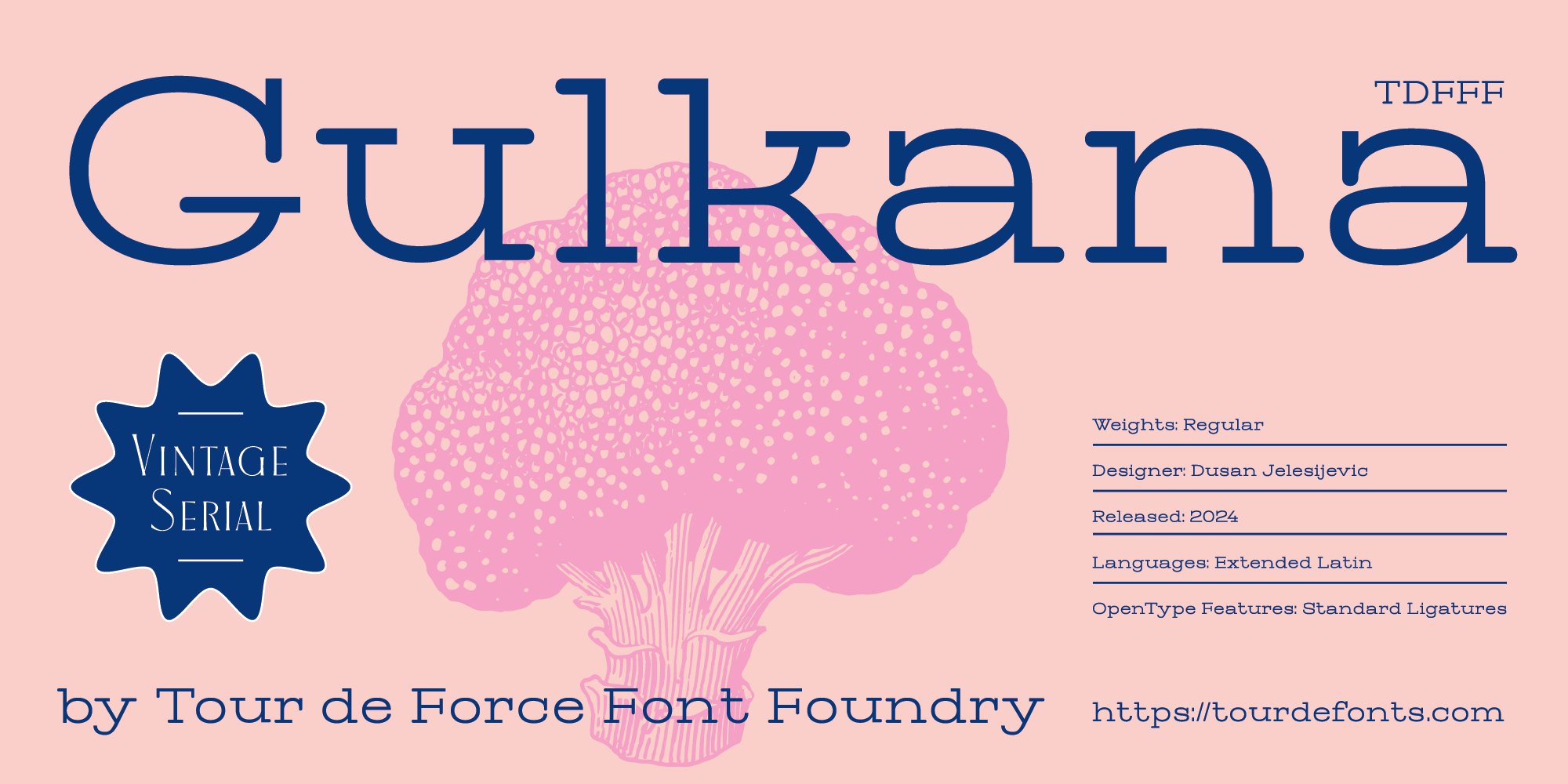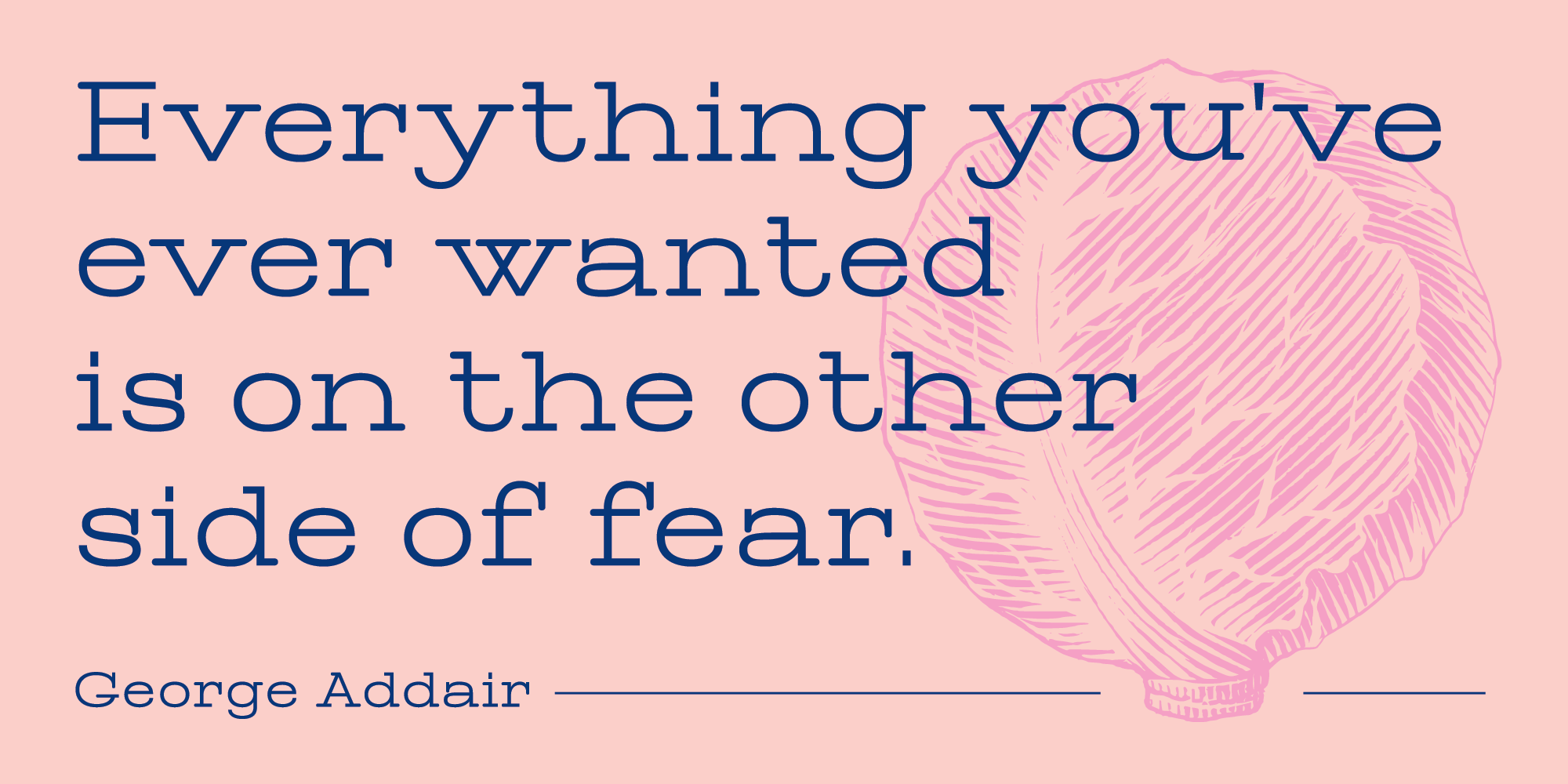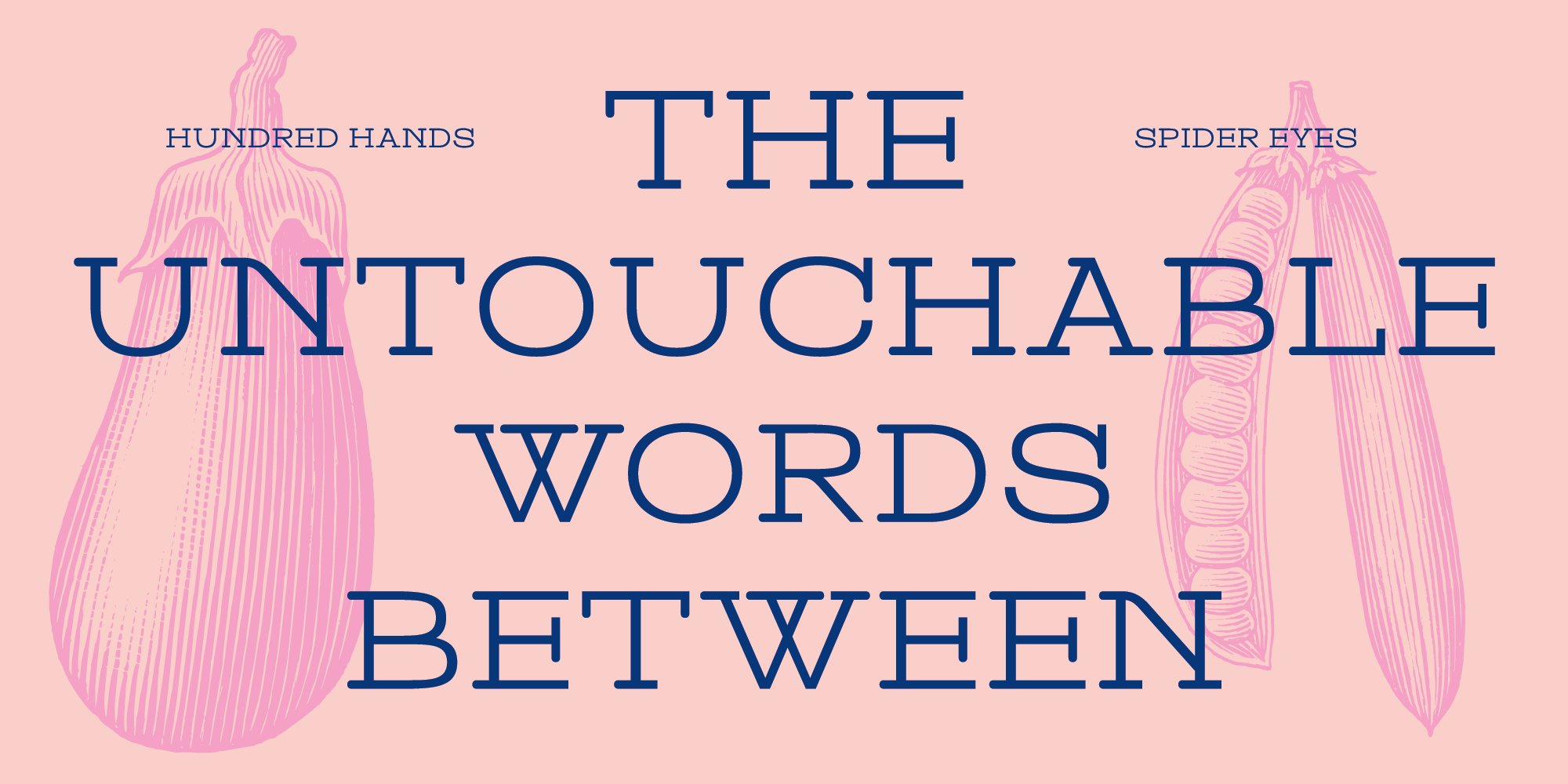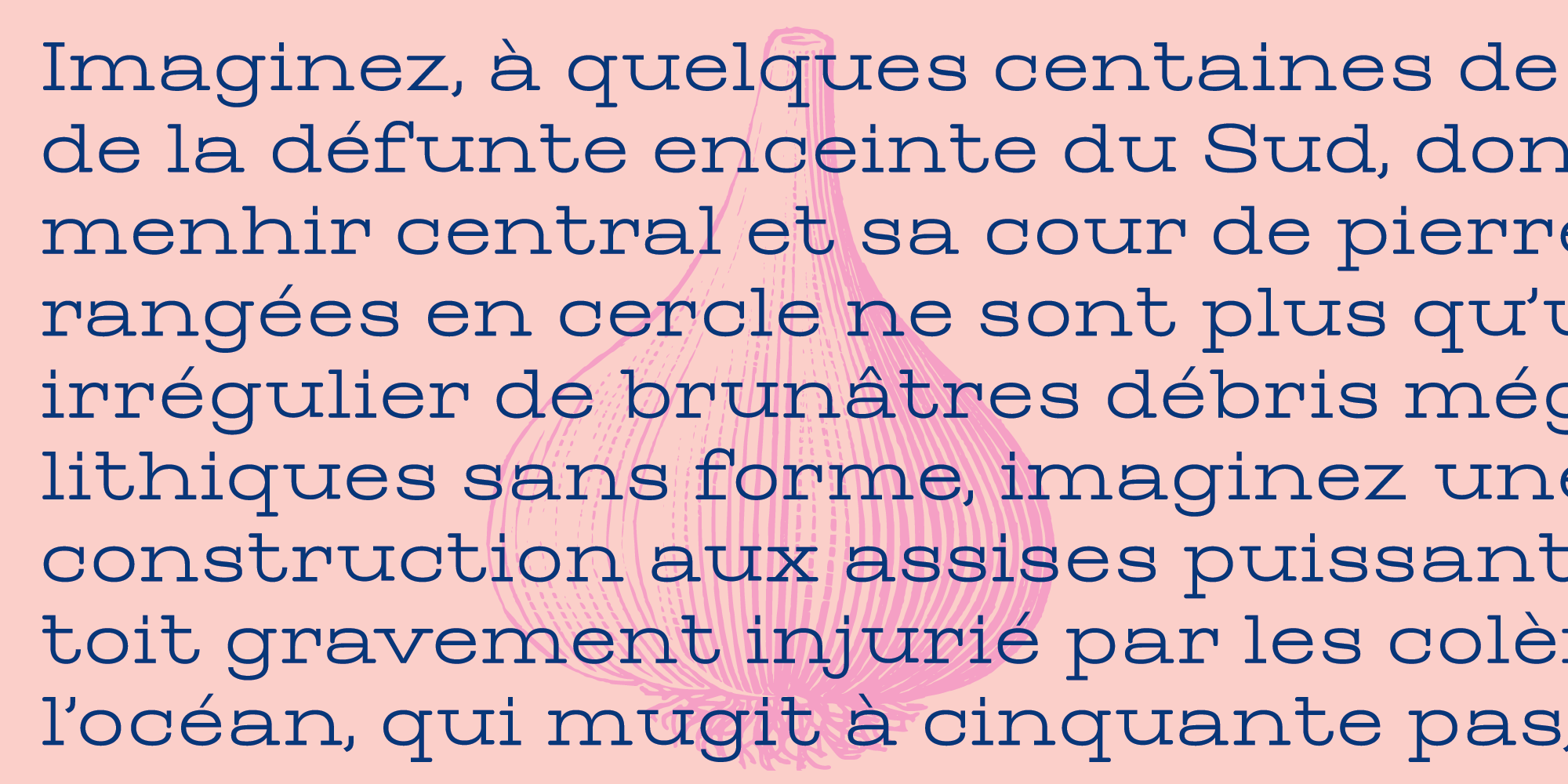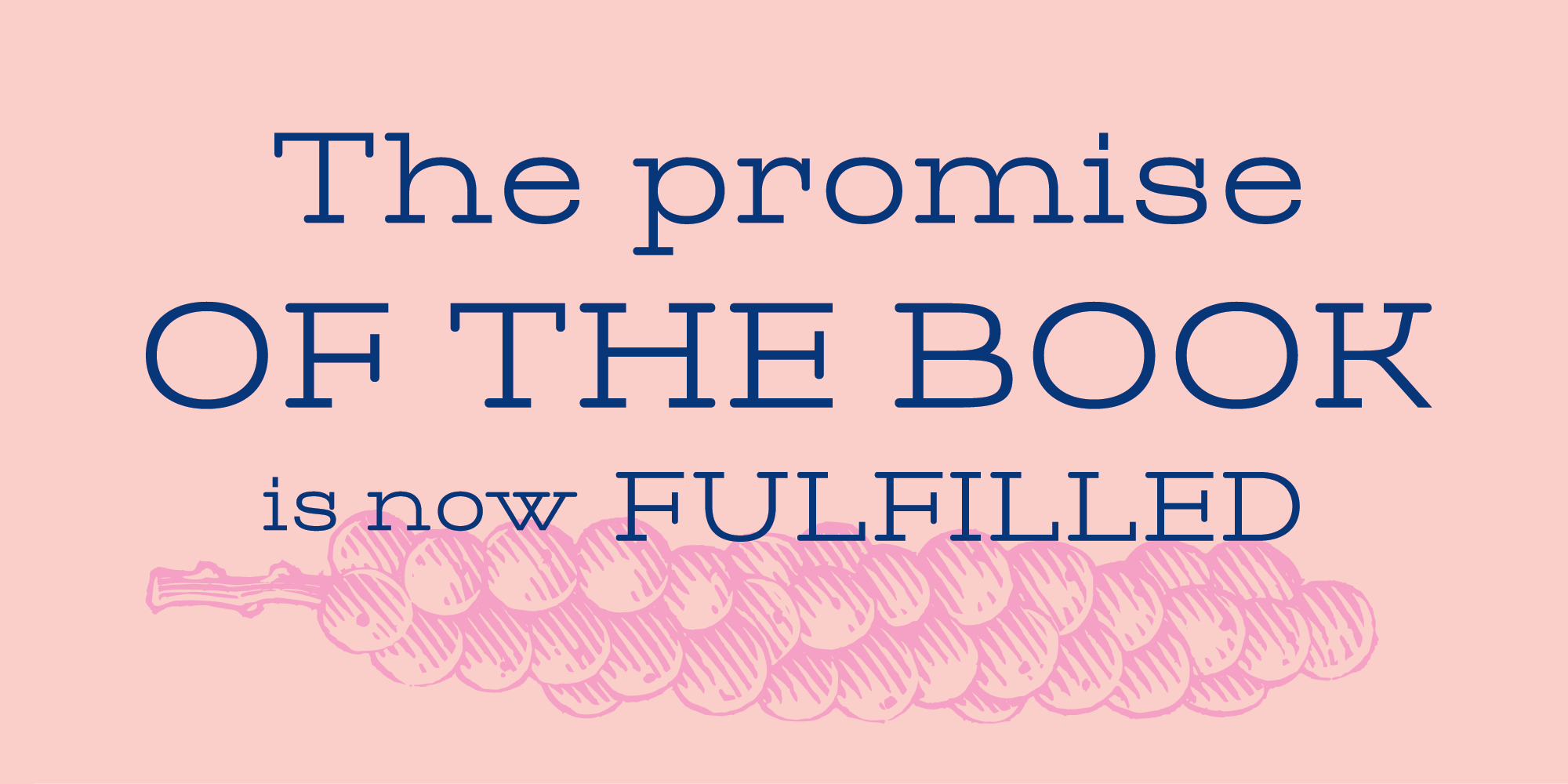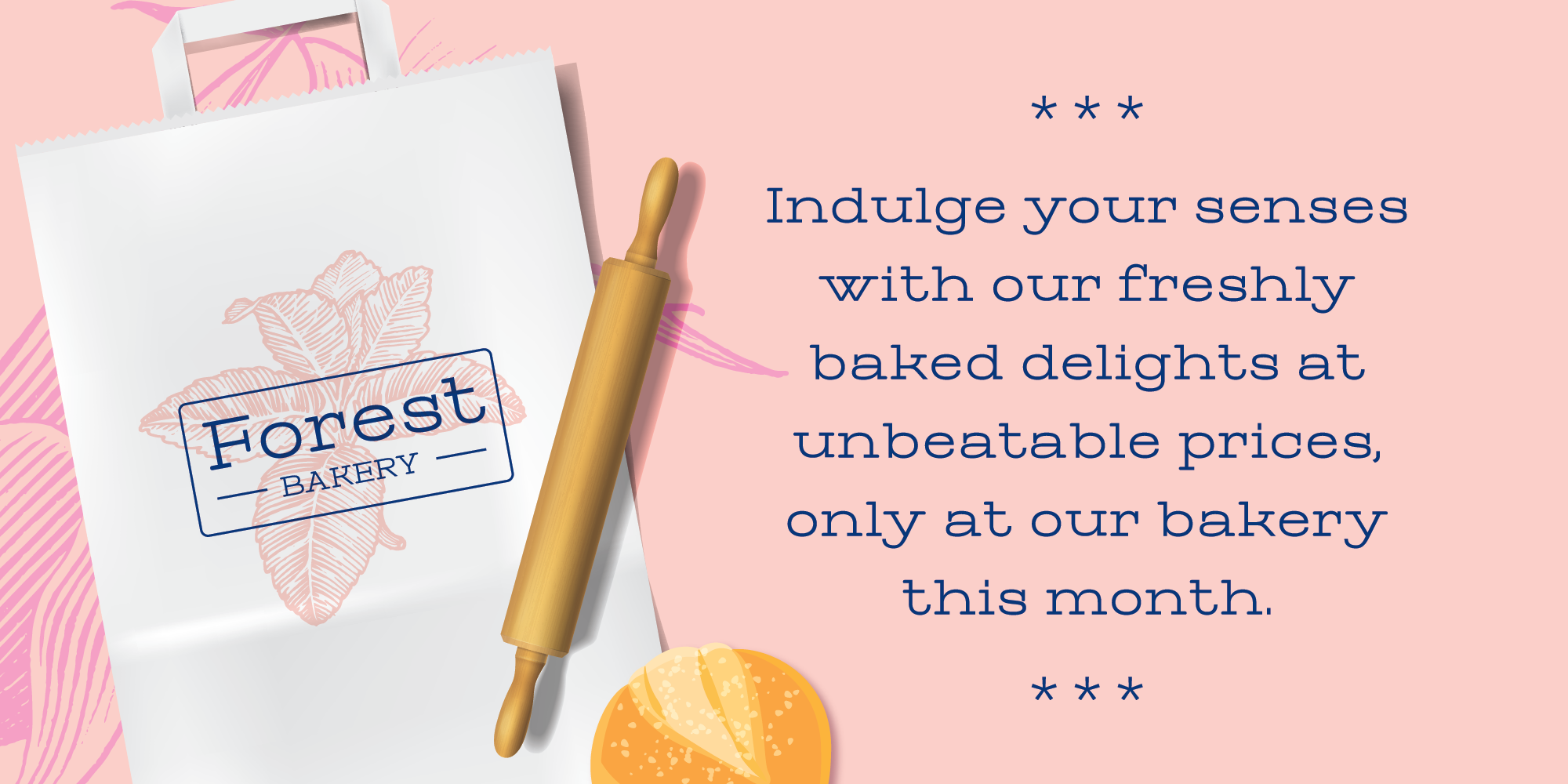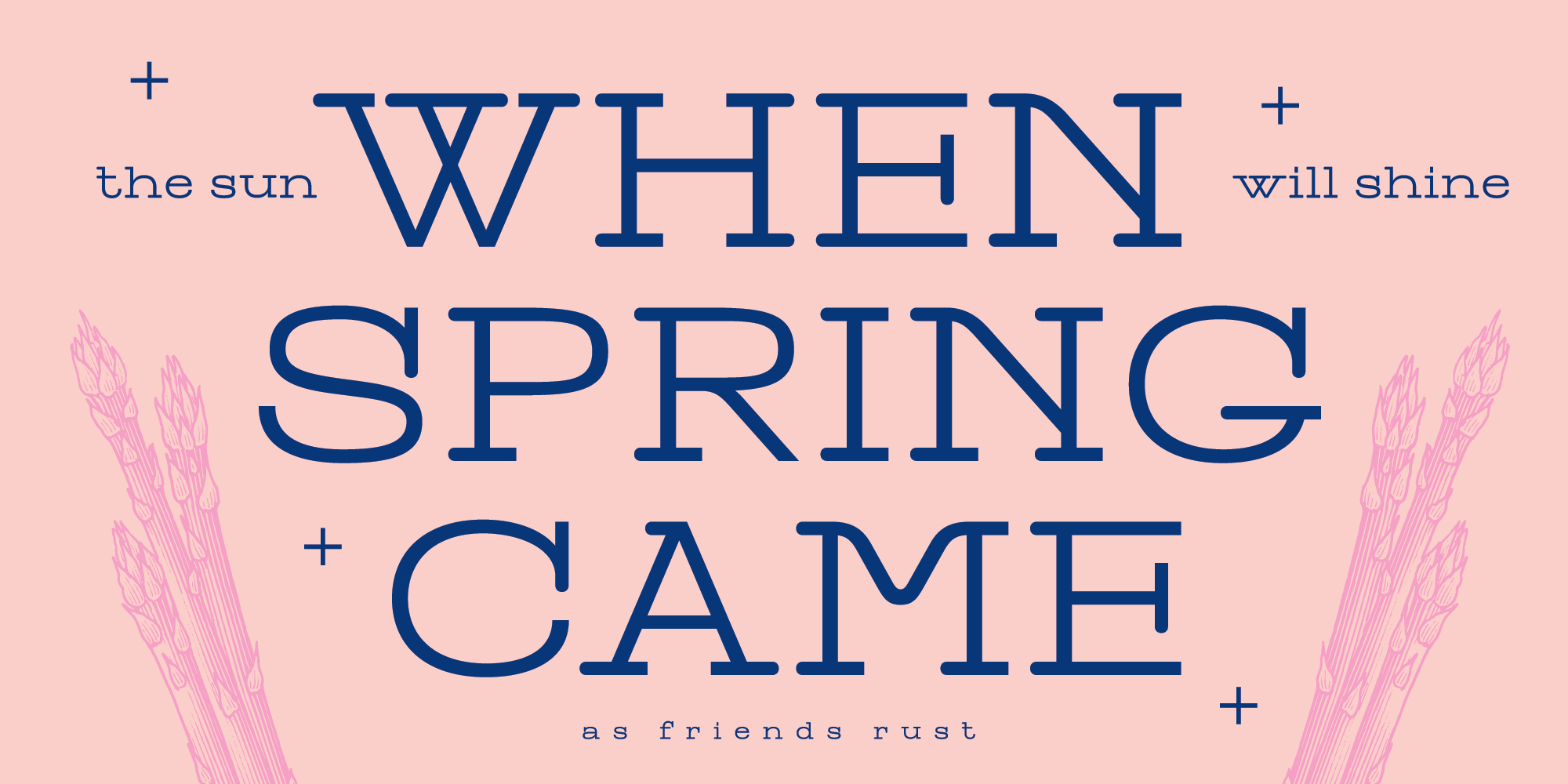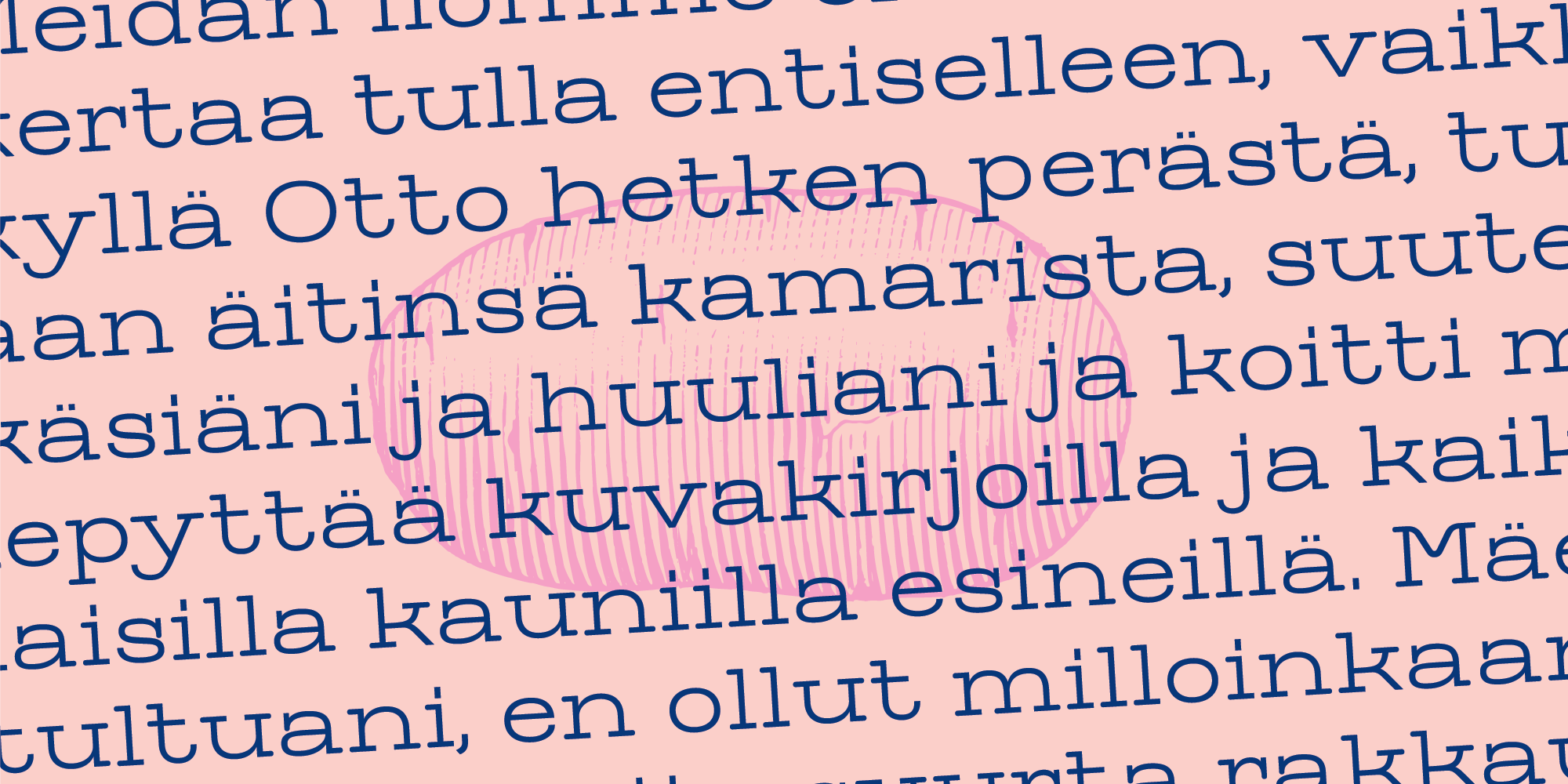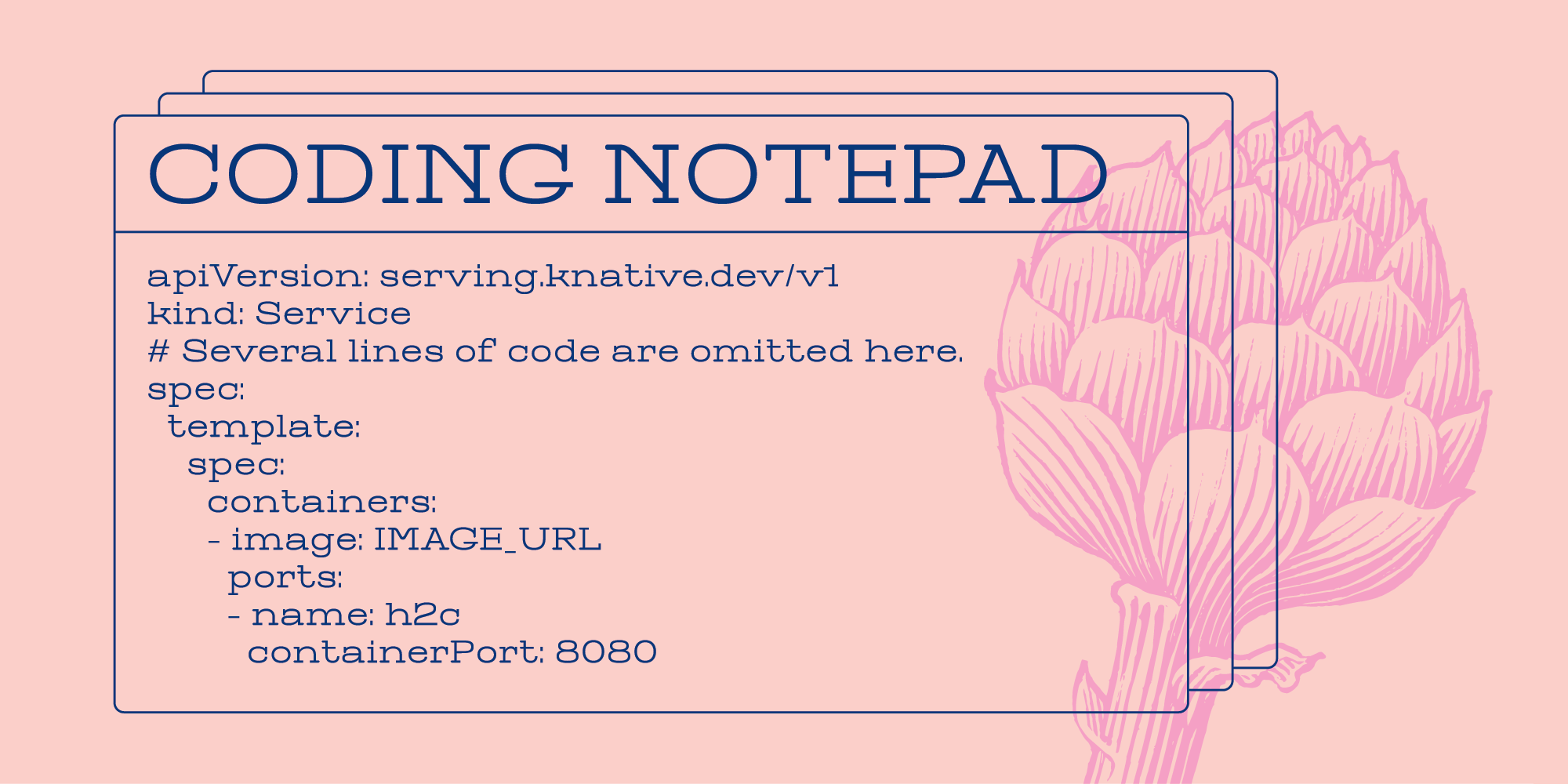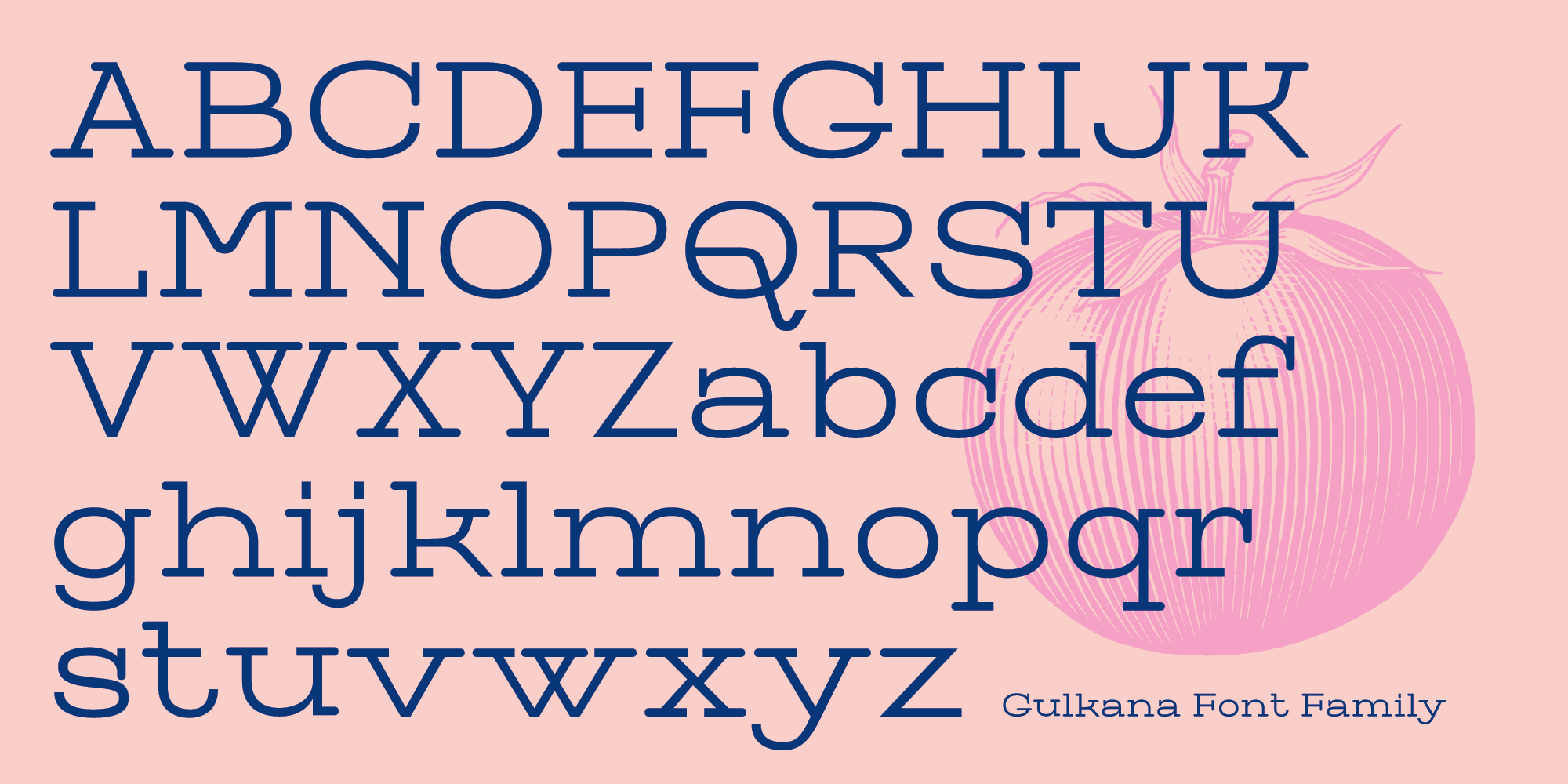
Gulkana is another single weight addition to Vintage Serial font families.
Gulkana is another single weight addition to Vintage Serial font families. Generously wide by width, with specific serif design and sans serif character, Gulkana looks like mixture of display and typewriter fonts. It's ideal for package design, posters and branding.
Gulkana comes with Standard Ligatures as OpenType features.